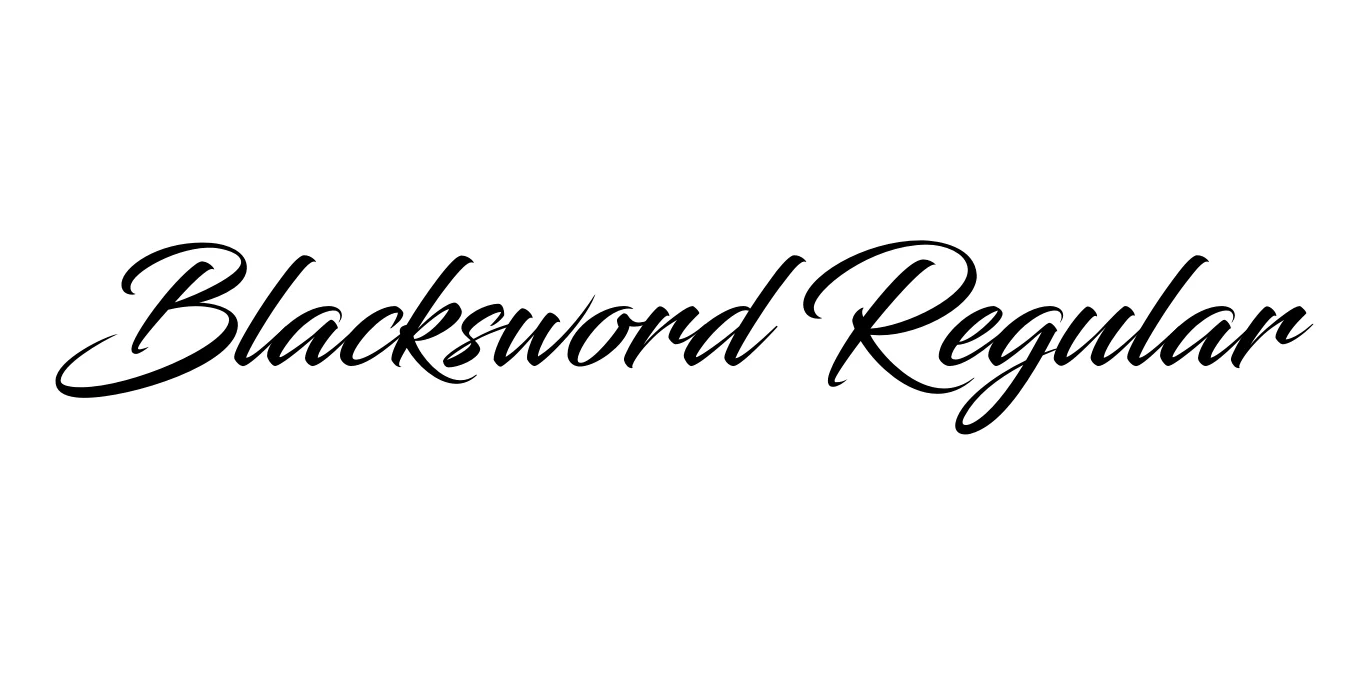
Blacksword Regular
Designed by Youssef Habchi
Blacksword Regular is a contemporary script typeface that expertly balances sharp, aggressive strokes with elegant, flowing curves. Designed by Youssef Habchi, this font captures a sense of speed and modern calligraphy, making it a standout choice for designers who want to convey motion and sophistication. Its brush-like aesthetic is both edgy and professional, bridging the gap between street-style art and high-end typography.
The font features a series of high-contrast terminals and sweeping ligatures that give it a distinct hand-drawn feel. It is particularly effective in large sizes where its intricate details and sharp edges can be fully appreciated. Blacksword is frequently utilized in the sports, fashion, and lifestyle sectors for projects that require a bold, signature-style identity that remains legible and stylish across various digital and print mediums.
Blacksword Regular Best Uses
Ideal for creating distinctive signature-style visual identities.
Perfect for high-impact streetwear and fashion merchandise designs.
Great for eye-catching quotes and promotional graphics.
Suitable for bold headlines in magazines and lifestyle publications.